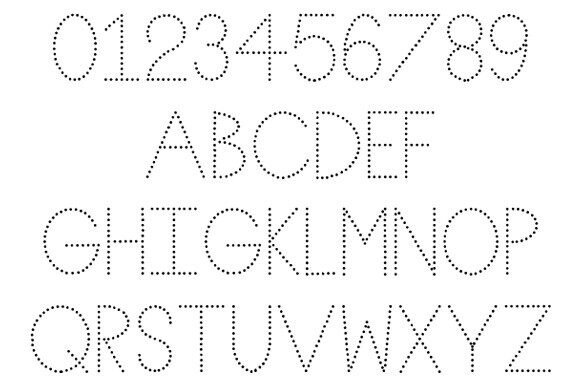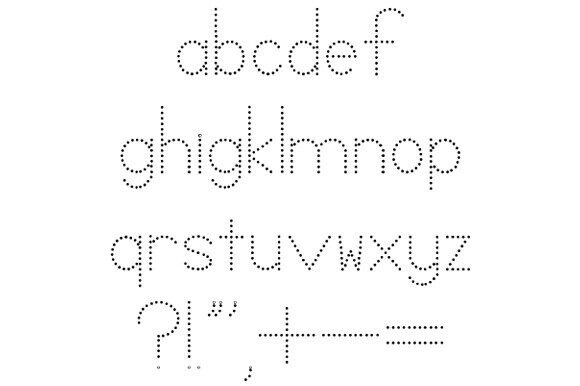
Bn101 Dotted Tracing Font: A Fun and Effective Handwriting Practice Tool
Are you a designer, crafter, or educator looking for a unique and engaging way to help children (or adults!) practice their handwriting skills? Look no further than the Bn101 Dotted Tracing Font. This innovative font is specifically designed to make handwriting practice fun and effective, featuring a clean and dotted design that’s perfect for tracing letters and numbers.
What is the Bn101 Dotted Tracing Font?
The Bn101 Dotted Tracing Font is a specially crafted handwriting font that features a dotted design, making it ideal for tracing letters and numbers. This font includes a comprehensive set of characters, including uppercase letters, lowercase letters, numbers (0-9), and punctuation marks. The clean and simple design of the font ensures that it’s easy to read and write, while the dotted lines provide a subtle guide for users to follow.
Benefits of Using the Bn101 Dotted Tracing Font
So, why choose the Bn101 Dotted Tracing Font for your handwriting practice needs? Here are just a few benefits of using this versatile font:
- Improved Handwriting Skills: The Bn101 Dotted Tracing Font is designed to help users develop muscle memory and improve their handwriting skills. The dotted lines provide a gentle guide, helping users to learn the correct letter and number formations.
- Engaging and Fun: The clean and dotted design of the font makes handwriting practice a fun and engaging experience. Users of all ages will love the interactive and dynamic nature of this font.
- Versatile: The Bn101 Dotted Tracing Font is perfect for a range of applications, from educational materials and worksheets to craft projects and DIY activities.
Features of the Bn101 Dotted Tracing Font
The Bn101 Dotted Tracing Font includes a range of features that make it an ideal choice for handwriting practice. Some of the key features include:
- Comprehensive Character Set: The font includes a comprehensive set of characters, including uppercase letters, lowercase letters, numbers (0-9), and punctuation marks.
- Clean and Dotted Design: The clean and dotted design of the font makes it easy to read and write, while providing a subtle guide for users to follow.
- Scalable: The font is scalable, making it perfect for use in a range of applications, from small worksheets to large posters.
Ideas for Using the Bn101 Dotted Tracing Font
The Bn101 Dotted Tracing Font is a versatile tool that can be used in a range of applications. Here are some ideas to get you started:
- Educational Materials: Use the font to create engaging and interactive worksheets, activity sheets, and educational materials for children.
- Craft Projects: The font is perfect for use in craft projects, such as making handmade cards, gift tags, and other paper crafts.
- DIY Activities: Use the font to create fun and interactive DIY activities, such as handwriting practice sheets, mazes, and word searches.
- Handwriting Practice: The font is ideal for handwriting practice, providing a fun and engaging way for users to improve their handwriting skills.
The Bn101 Dotted Tracing Font is a fun and effective handwriting practice tool that’s perfect for designers, crafters, and educators. With its clean and dotted design, comprehensive character set, and versatile nature, this font is sure to become a favorite. Whether you’re looking to create engaging educational materials, craft projects, or DIY activities, the Bn101 Dotted Tracing Font is an excellent choice.